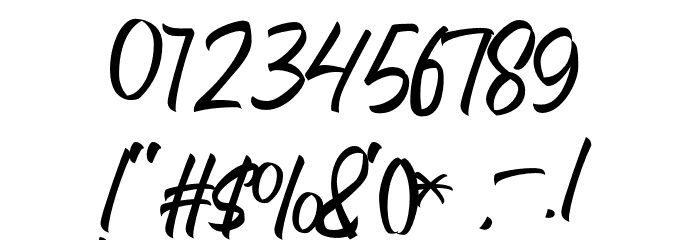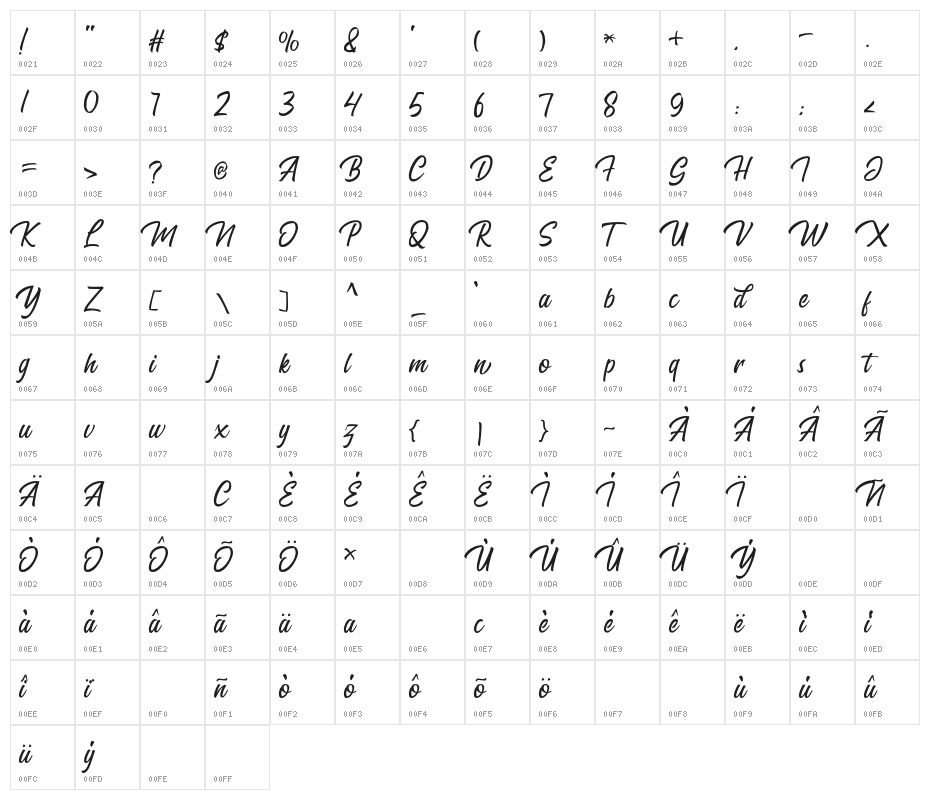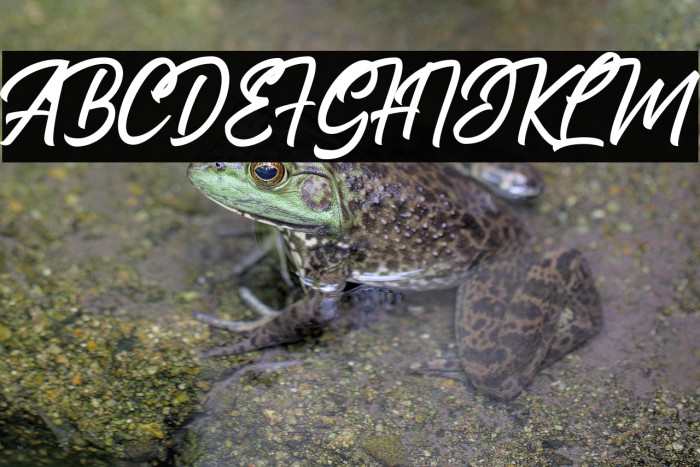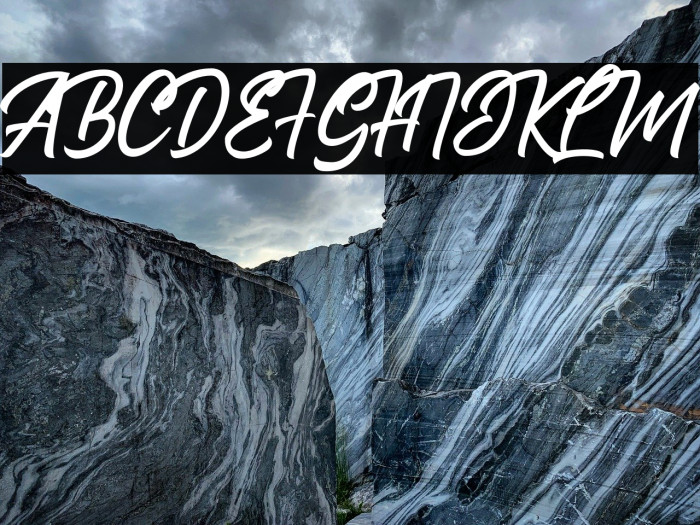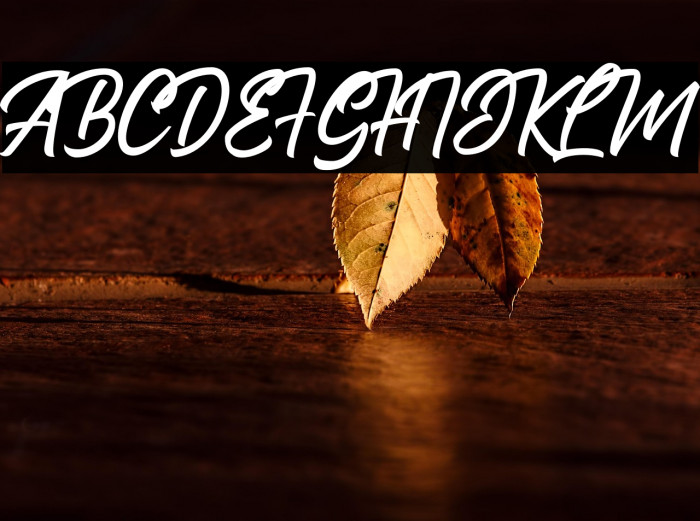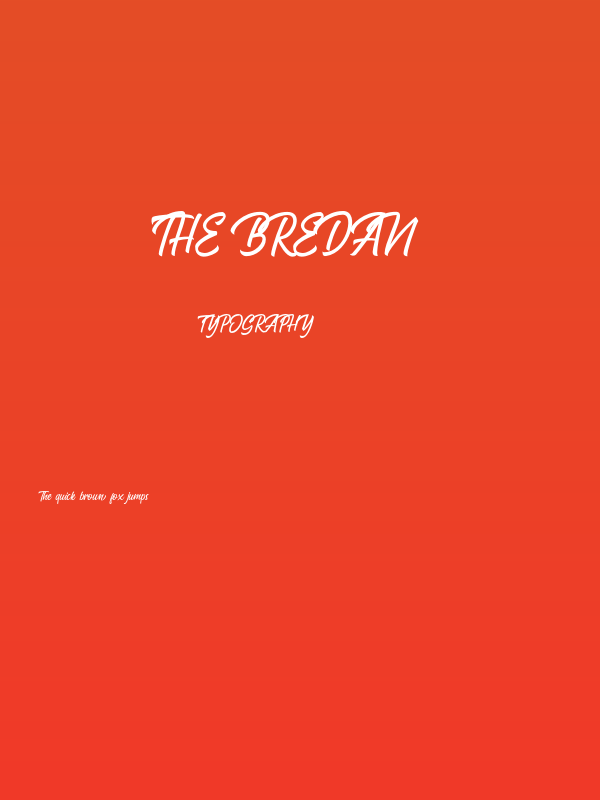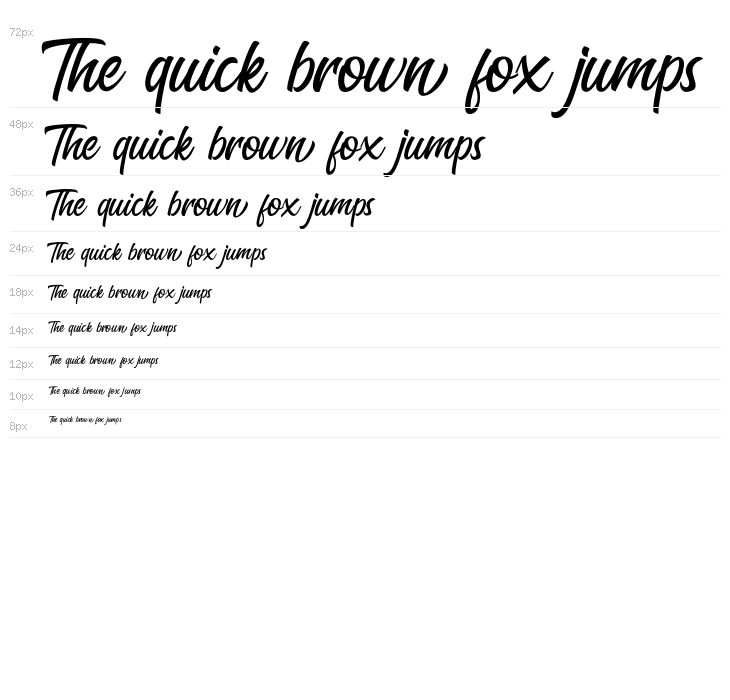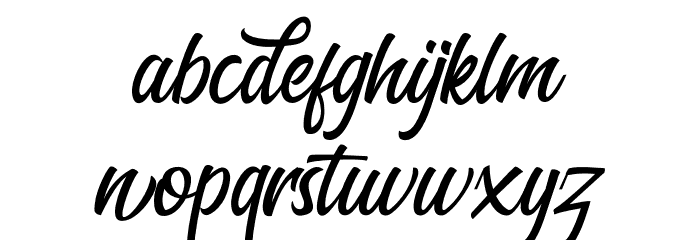
The Bredan Font
This font features a dynamic and flowing script style, characterized by its elegant and cursive letterforms. The uppercase letters exhibit a bold and sweeping motion, while the lowercase letters maintain a consistent fluidity that enhances readability. The numerals are crafted with a similar flair, ensuring they complement the overall aesthetic. Special characters are designed with the same attention to detail, making them seamlessly integrate with the rest of the typeface. The strokes are moderately thick, providing a balanced contrast that adds to its legibility and visual appeal.
Overall StyleElegant
Use CaseLogos, Invitations, Branding
Proposed ProjectsIdeal for wedding invitations, greeting cards, branding projects, and elegant packaging designs.